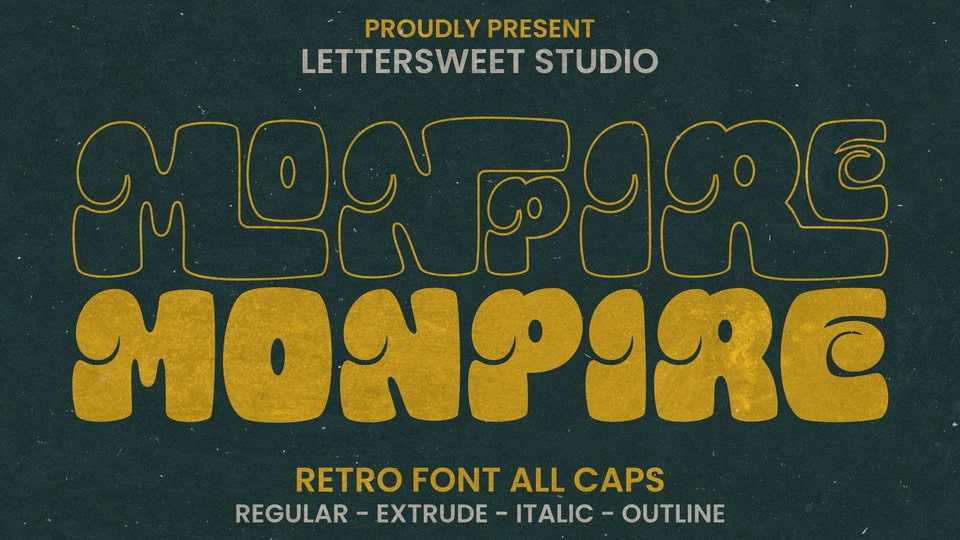
Download Monpire font, a retro display typeface that is a perfect blend of boldness and uniqueness. Its bulky letters are slightly unbalanced, adding an extra layer of charm and personality.